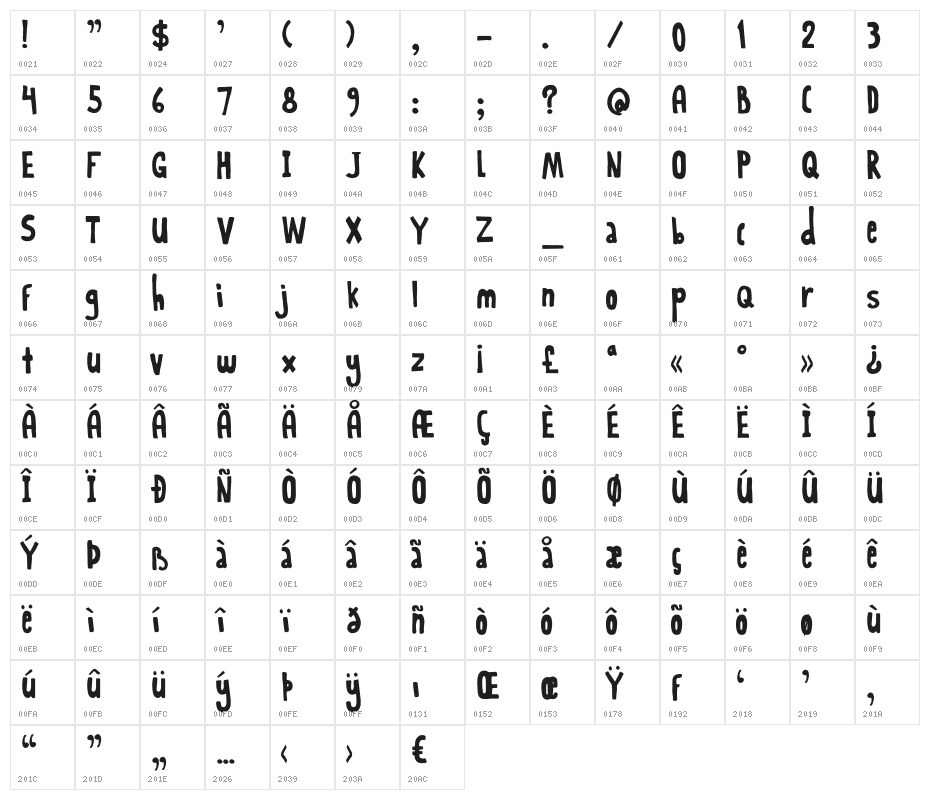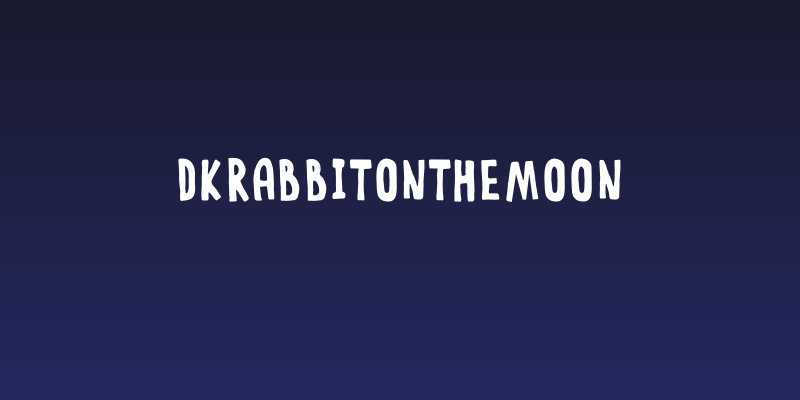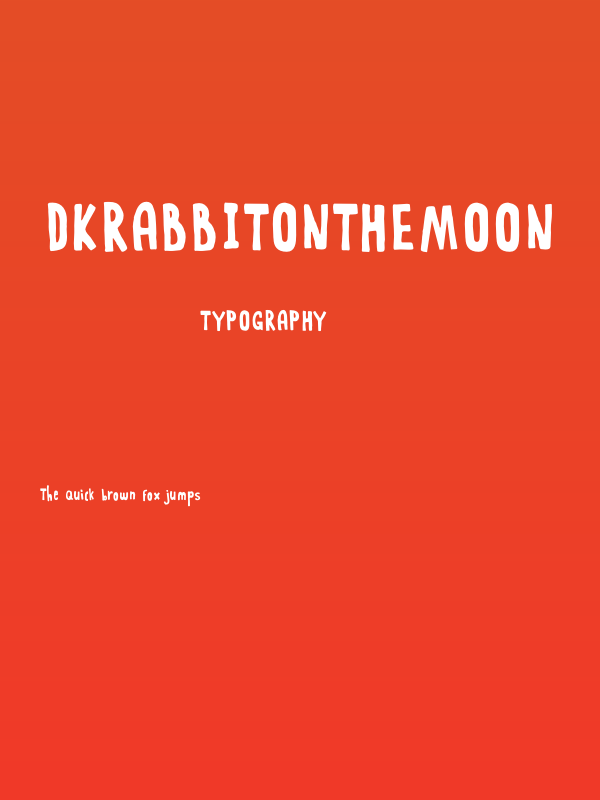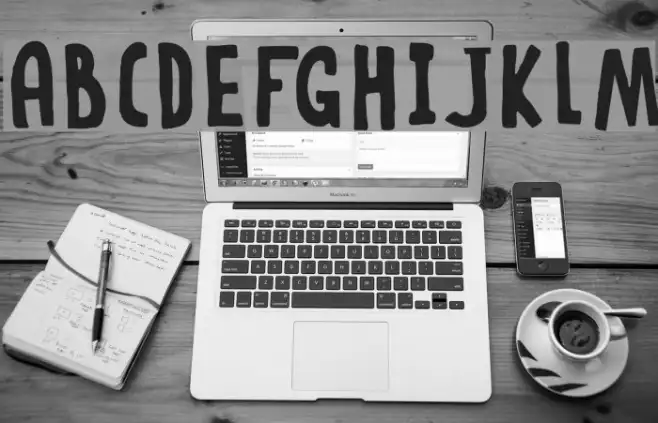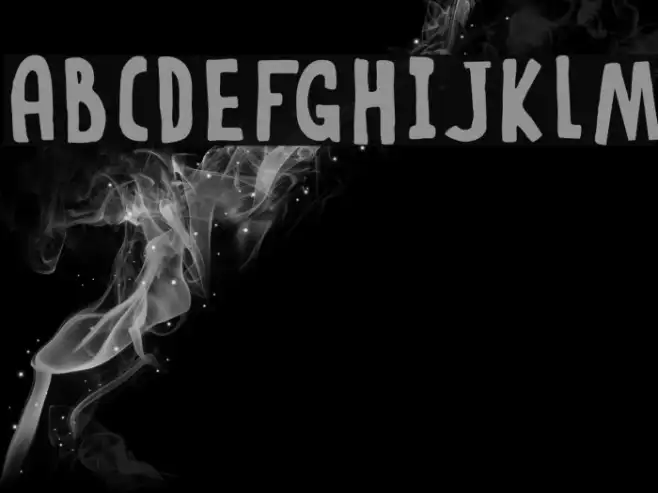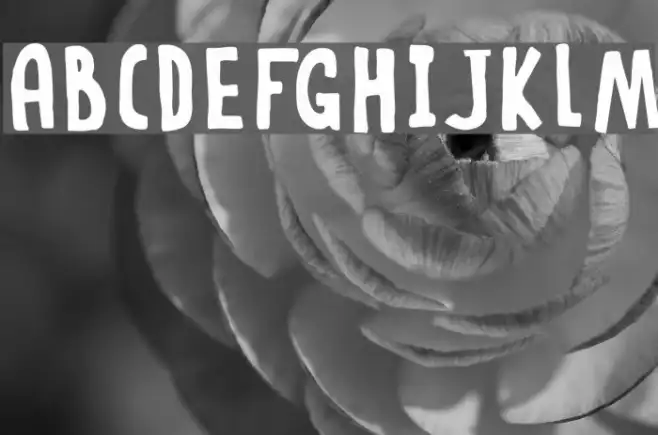
DKRabbitOnTheMoon Font
DKRabbitOnTheMoon Description
This playful and whimsical font features bold, irregular strokes that give it a hand-drawn appearance. The characters are slightly uneven, adding to its charm and making it ideal for creative and informal designs. The uppercase and lowercase letters maintain a consistent style, with rounded edges and a friendly feel. The numbers and special characters follow the same playful theme, with unique designs that stand out. The font's overall style is casual and fun, making it perfect for projects that require a touch of personality and creativity.
| Proposed Projects | Ideal for children's books, greeting cards, playful branding, and creative posters. |